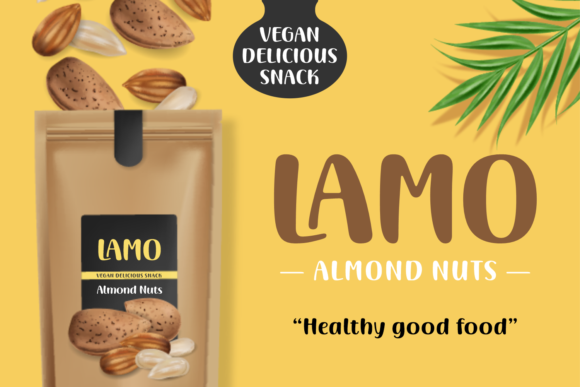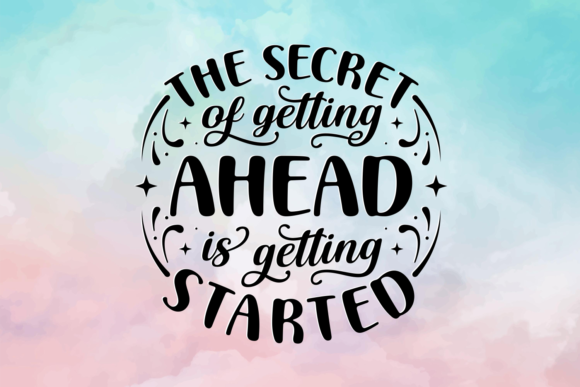
Simple Gifted Font
db-ku.com - Script & Handwritten -- Simple Gifted is a smooth, authentic and clean handwritten font. This font reads as strong, confident, and dynamic and can add tons of stylish character to your designs.